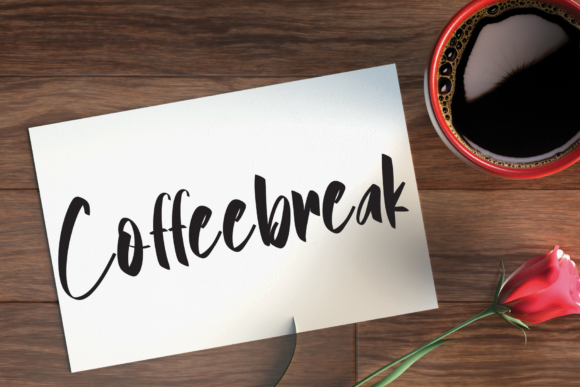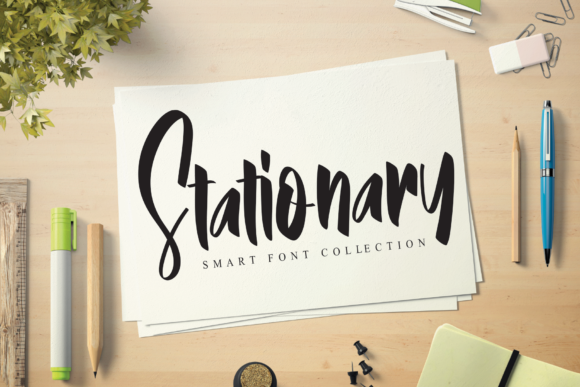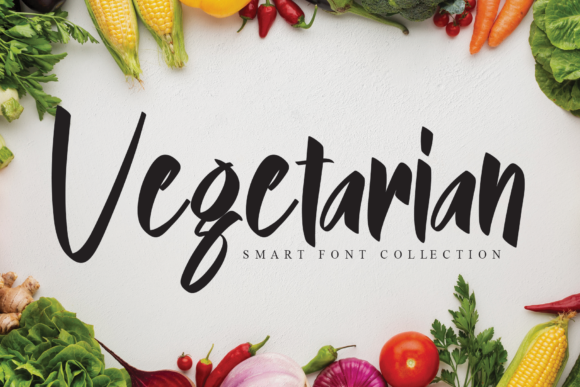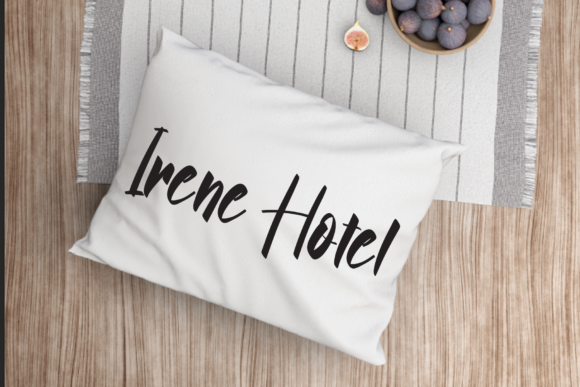
Signature is a bold and attractive handwritten font. Easily readable and nicely rounded, the characters of this typeface will transform any of your lovely creations into true pieces of art!